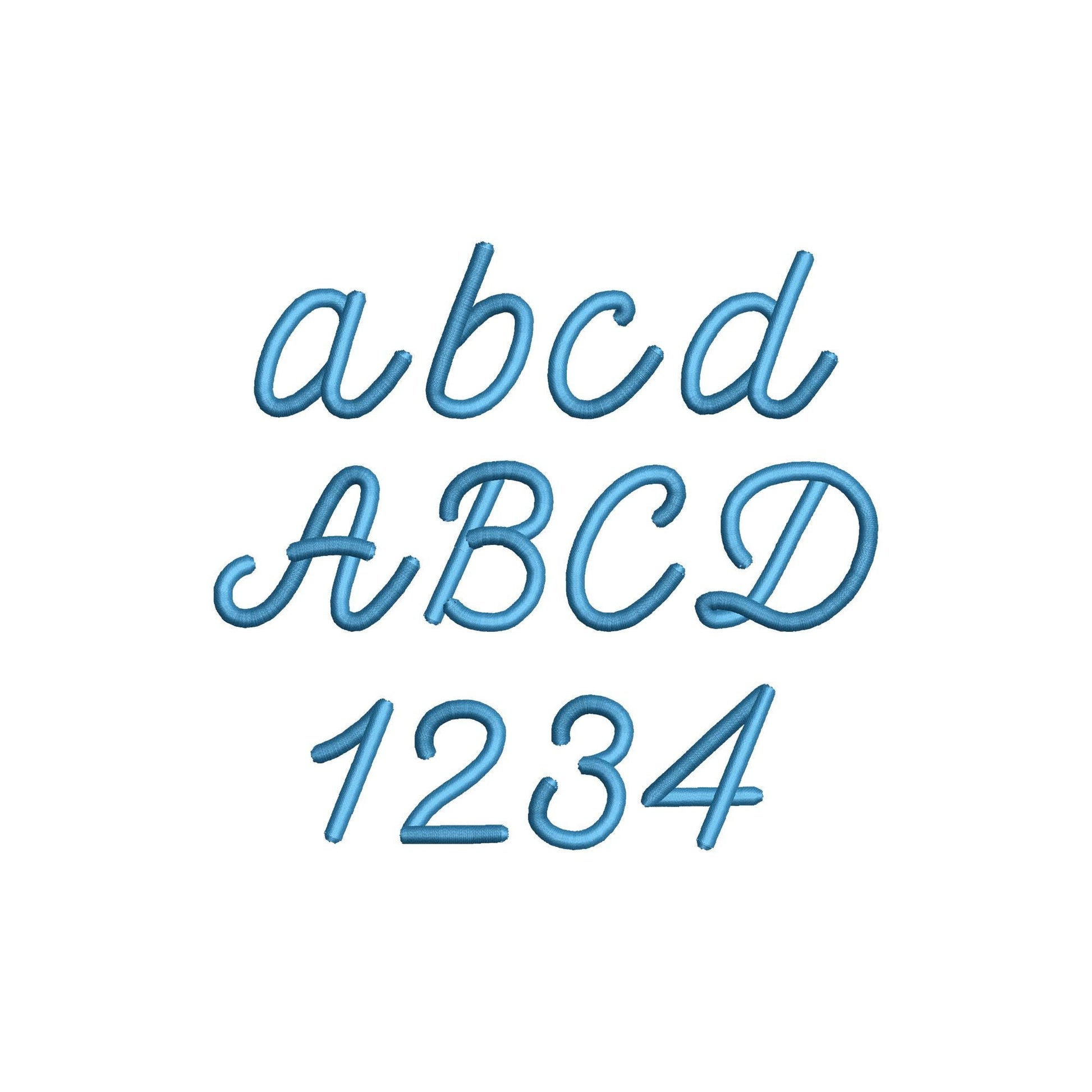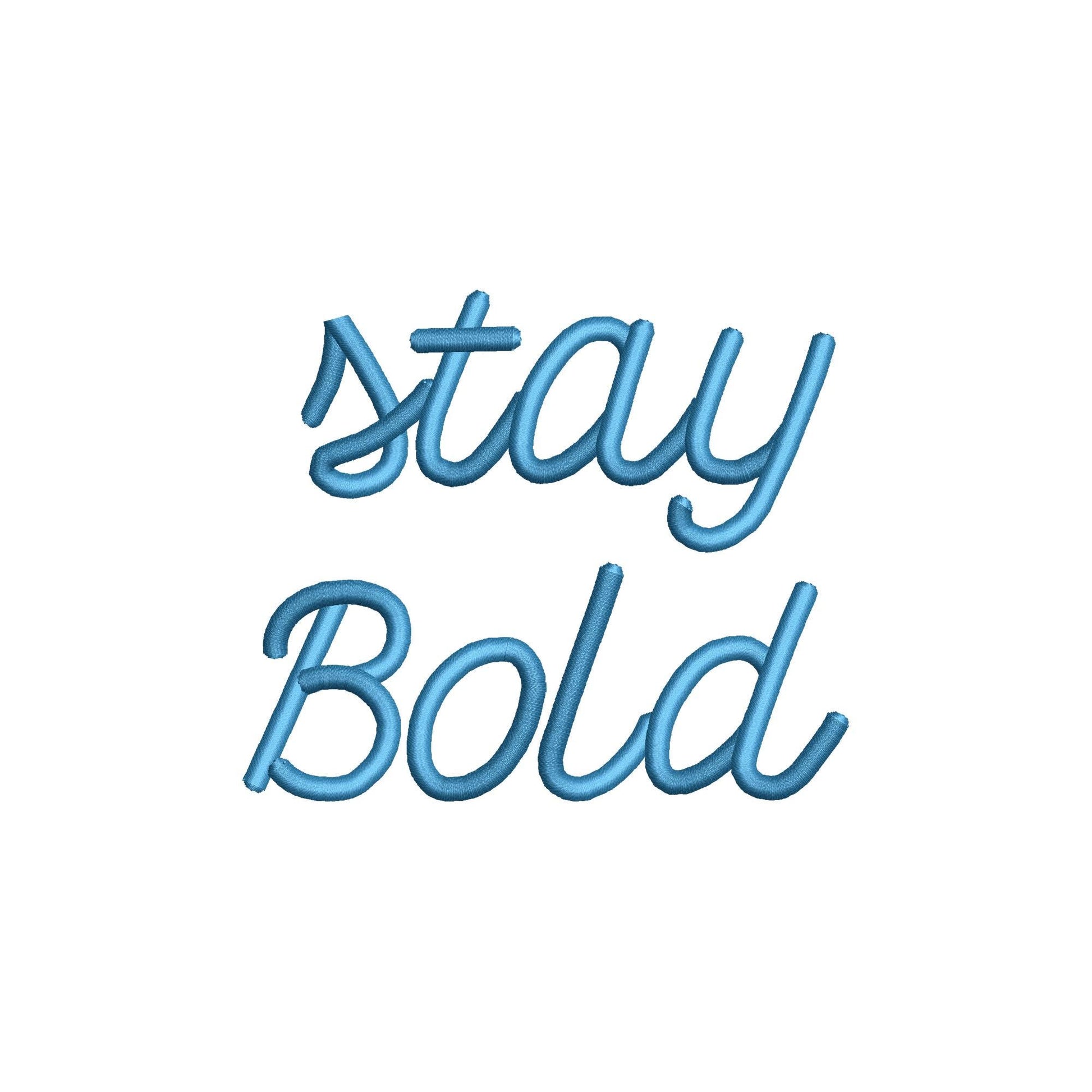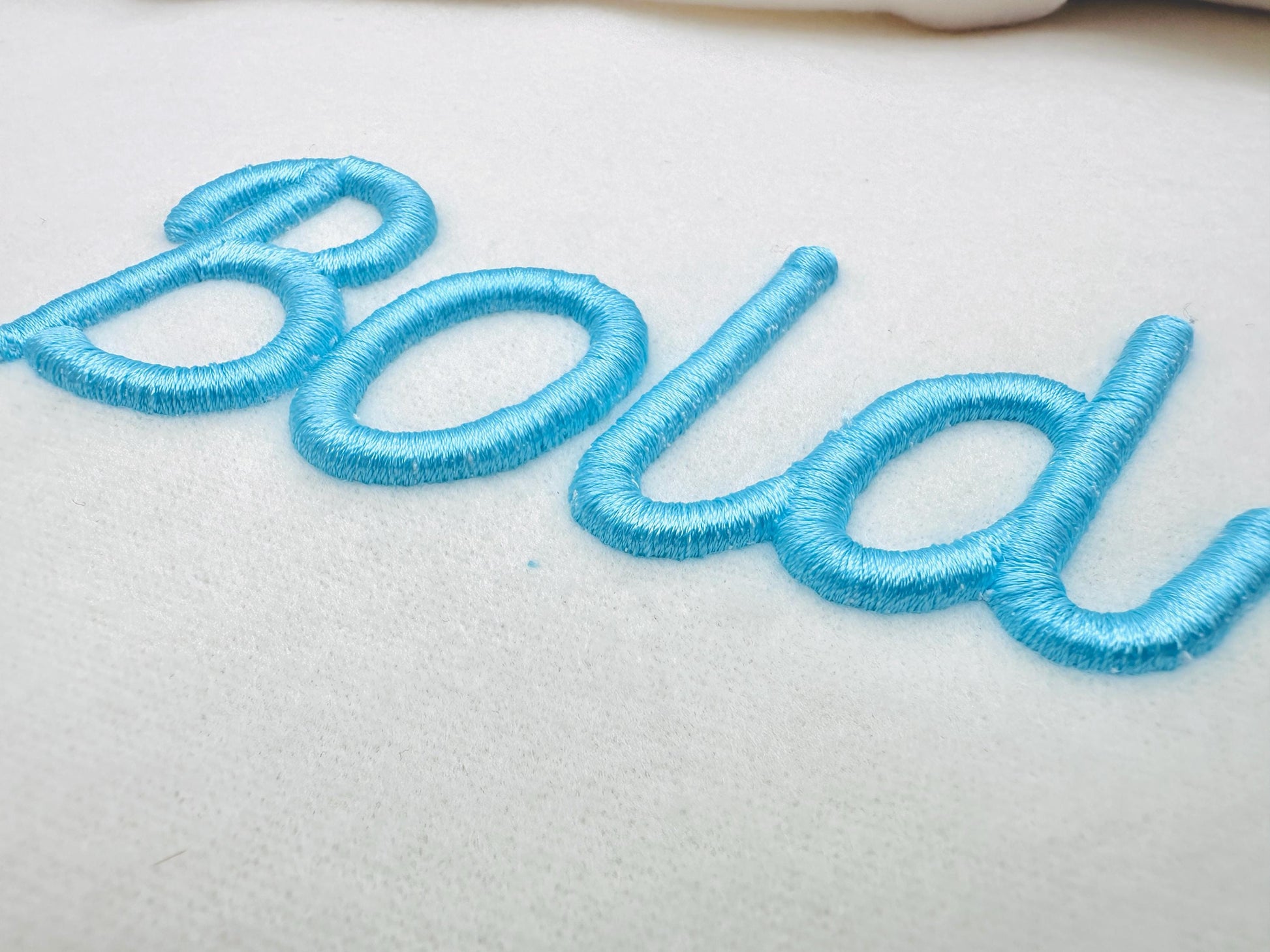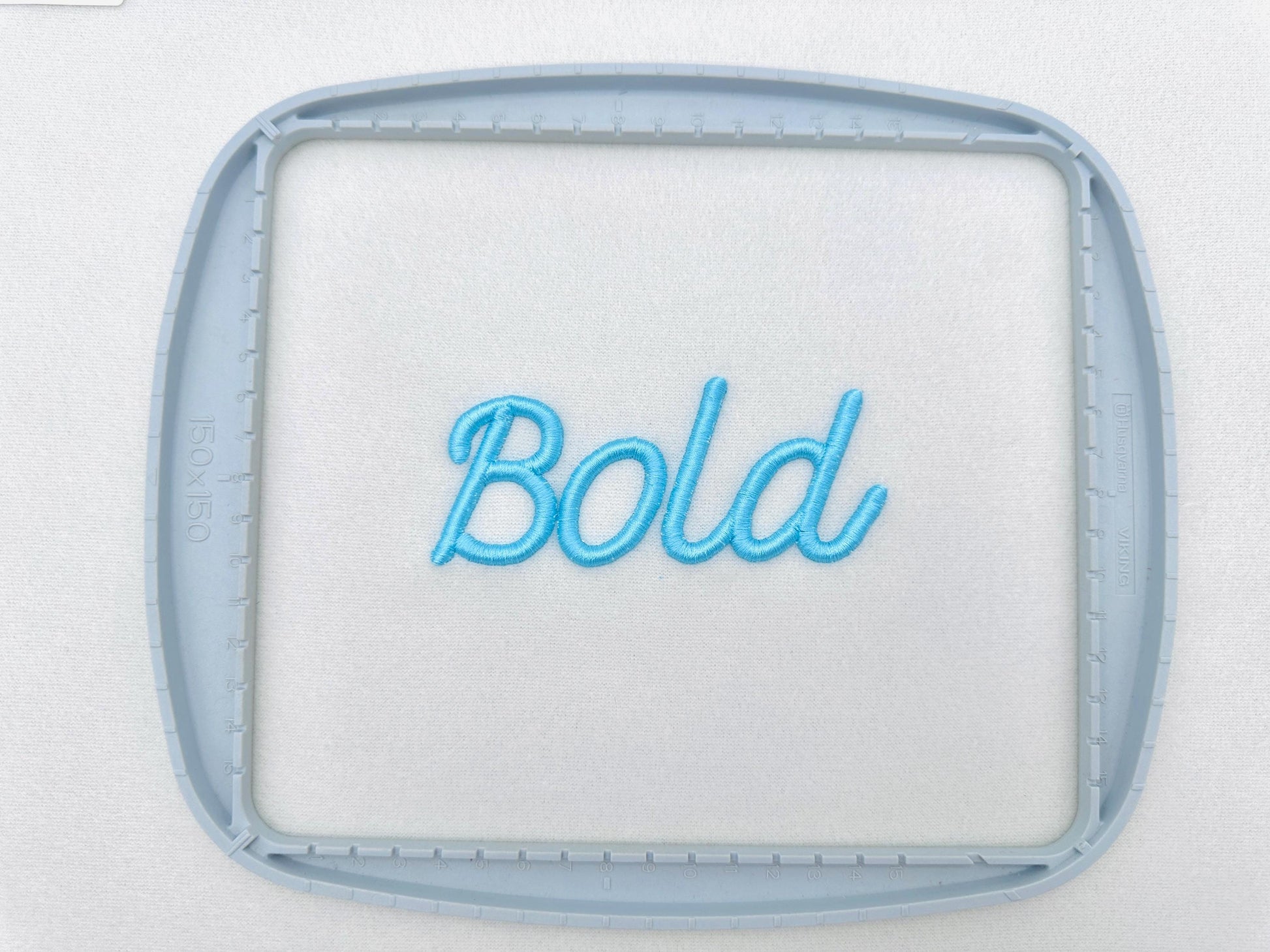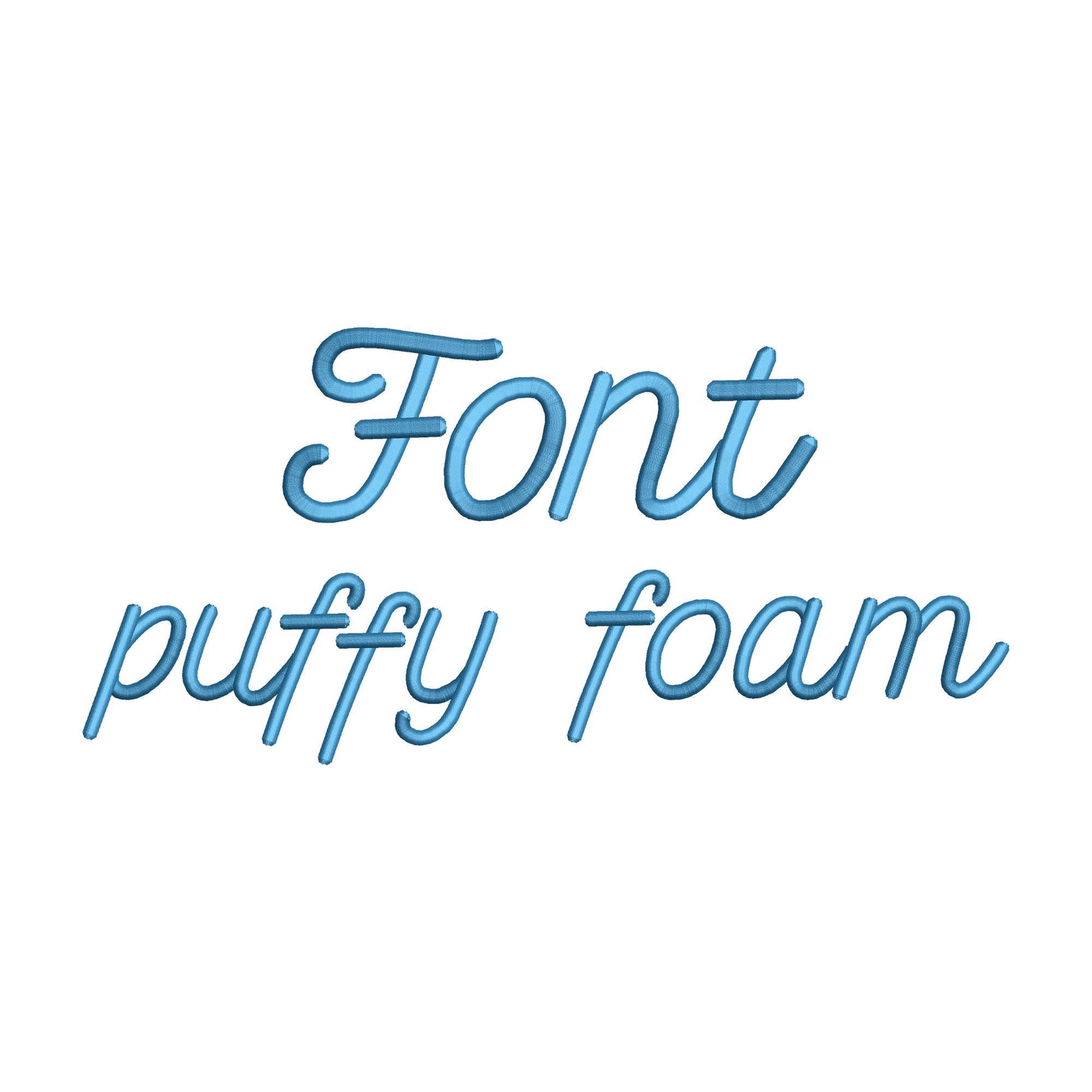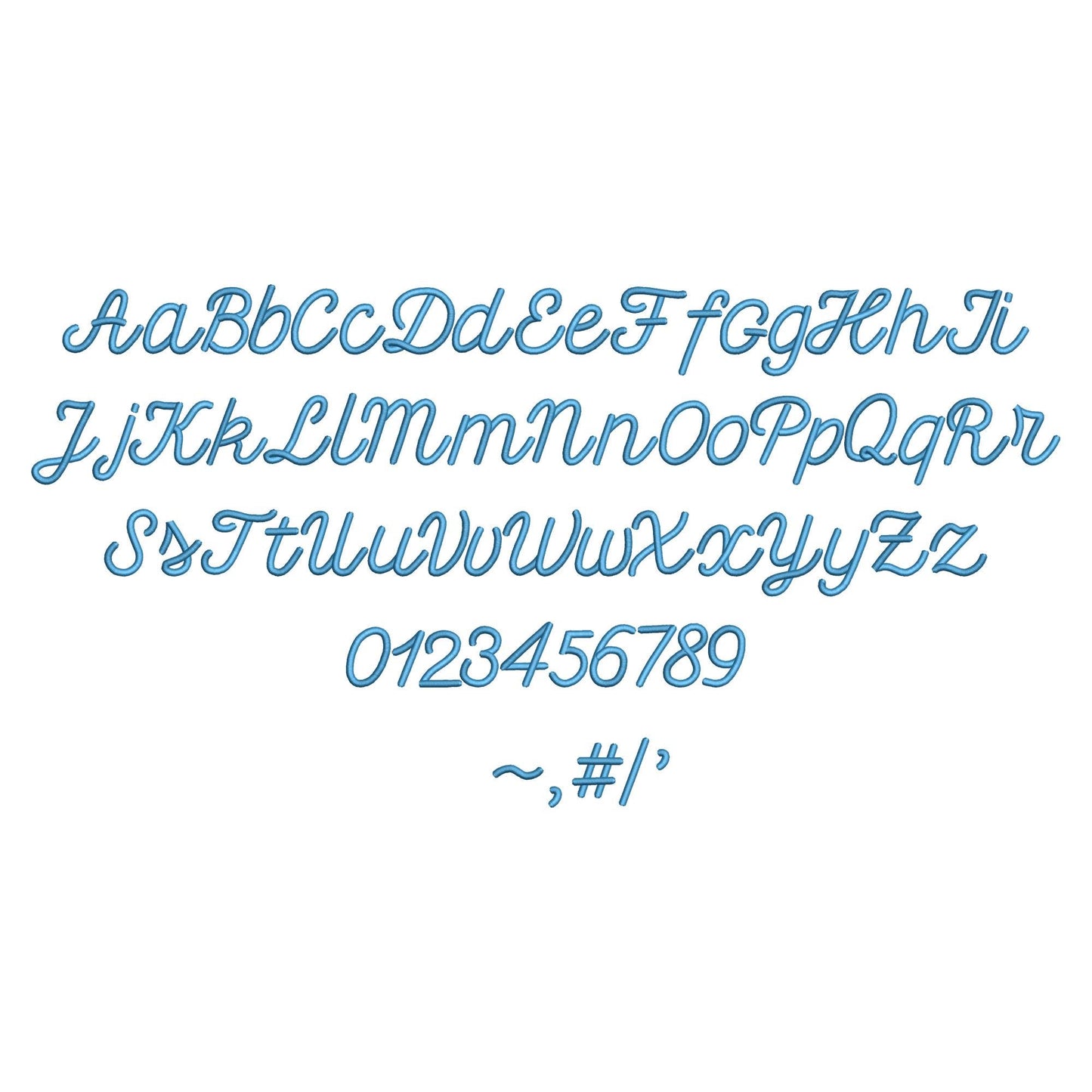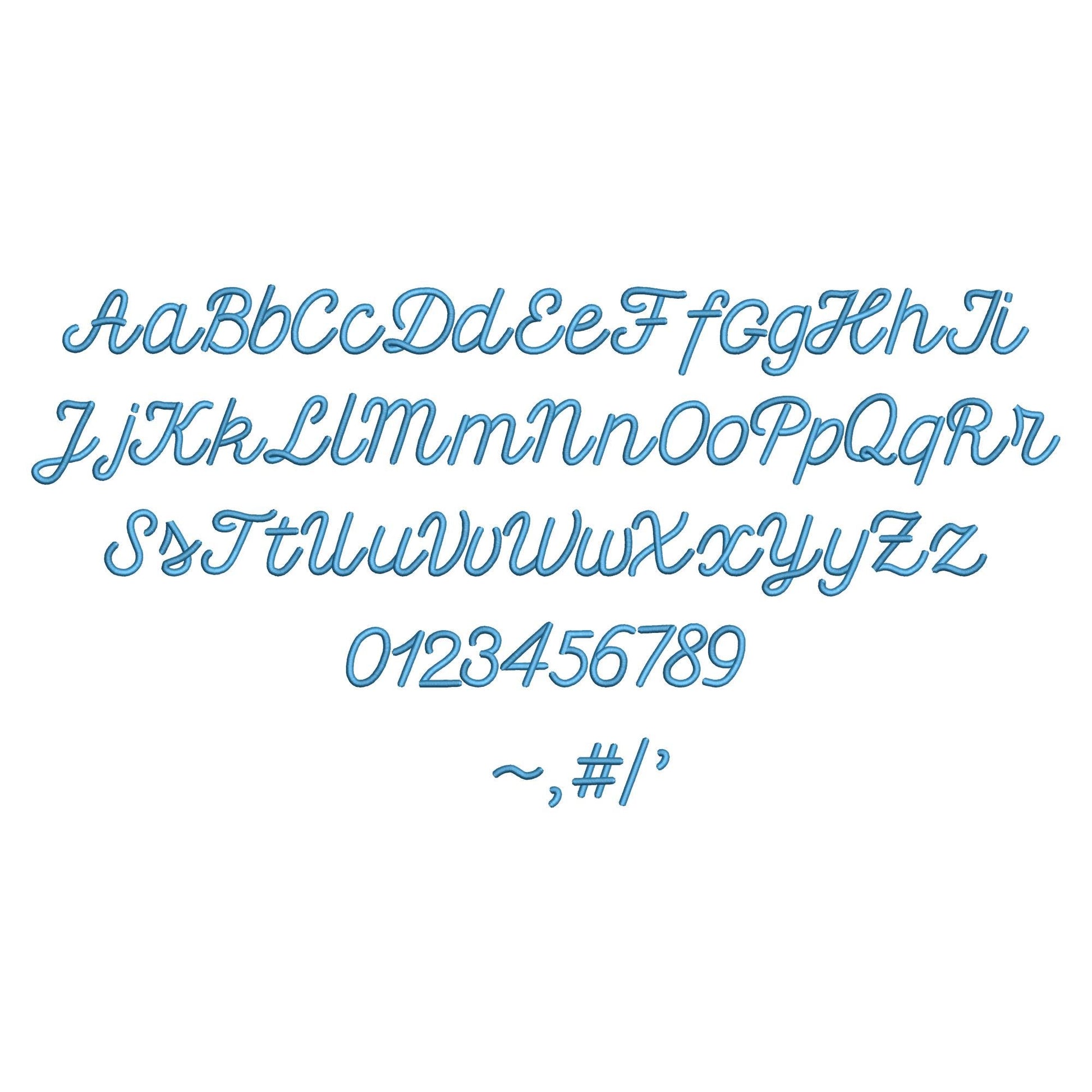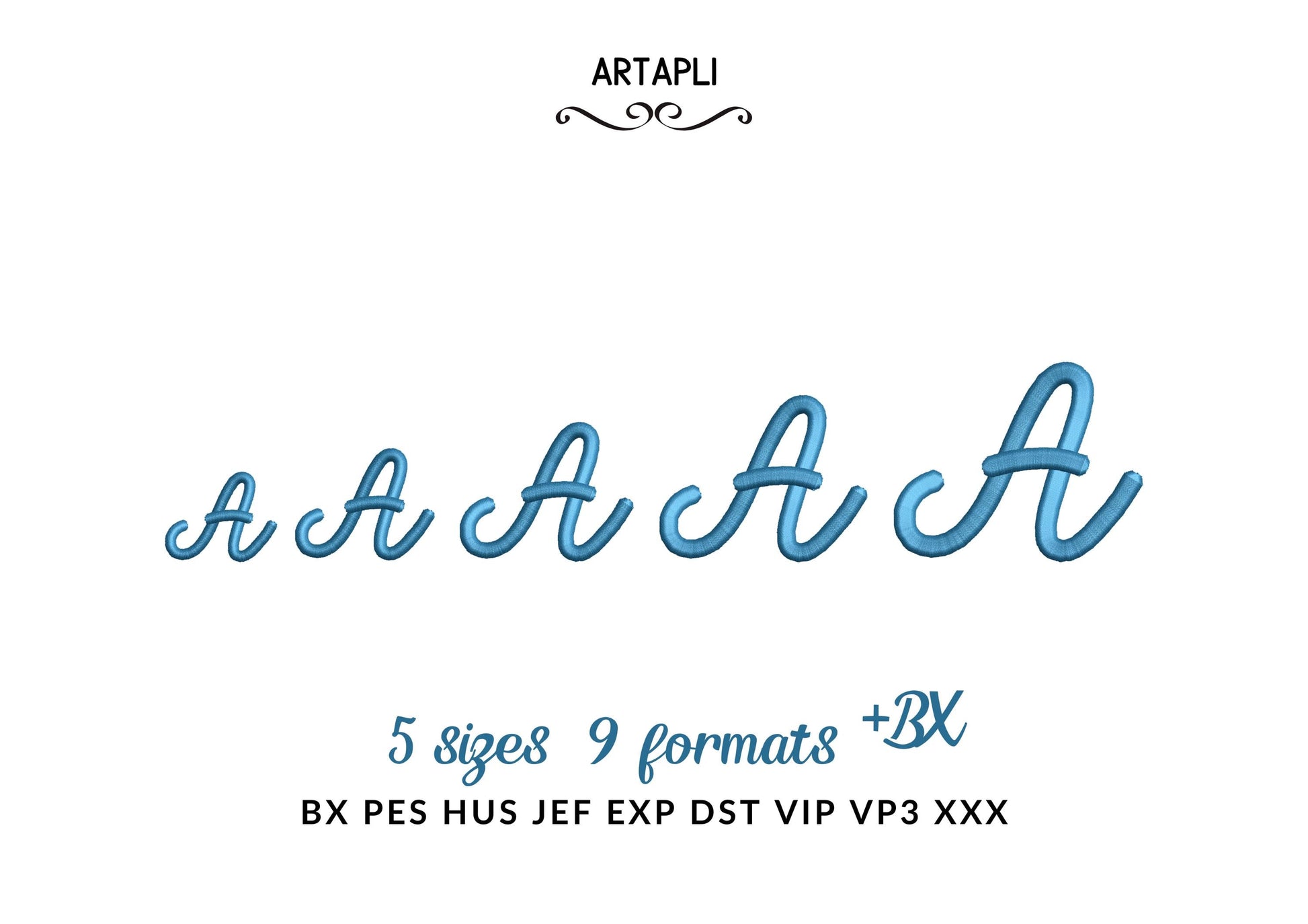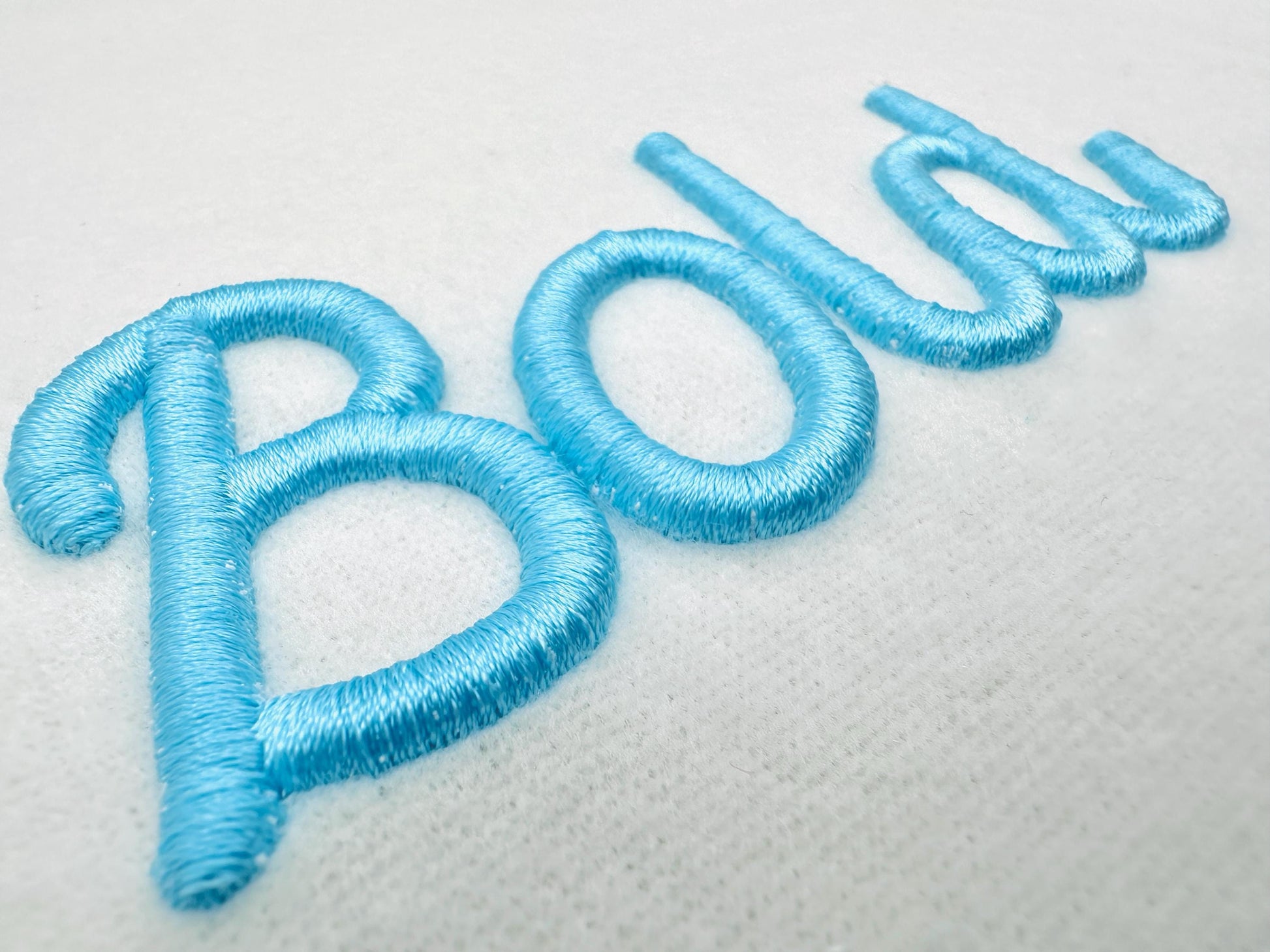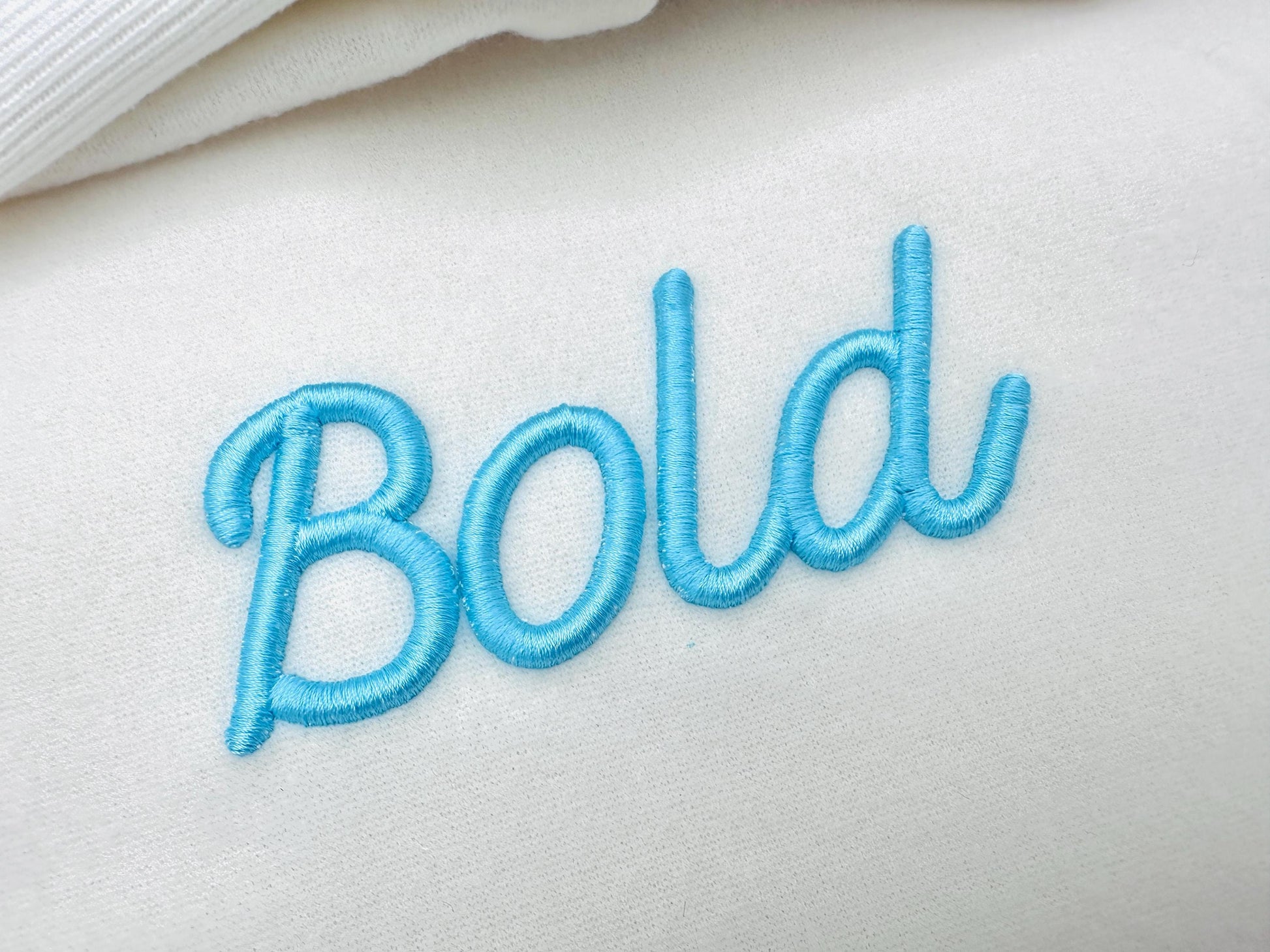
Or click to open the linkA bold, raised 3D handwritten font stitched over puffy foam. Great for caps, sweatshirts, jackets and bold names.
The letters come in five sizes: 1, 1.3, 1.6, 1.9 and 2.3 inches. Each letter is stitched over 3 mm puffy foam, so it stands up from the fabric. Includes uppercase and lowercase letters A to Z, numbers 0 to 9 and punctuation.